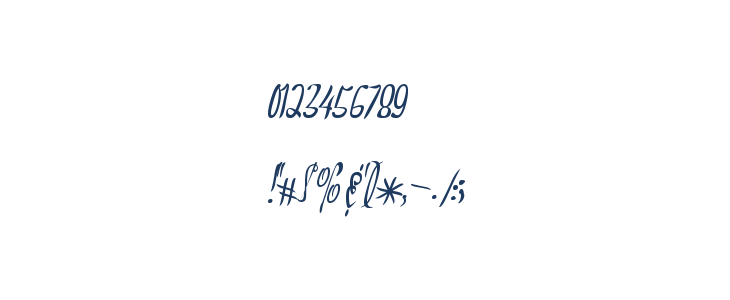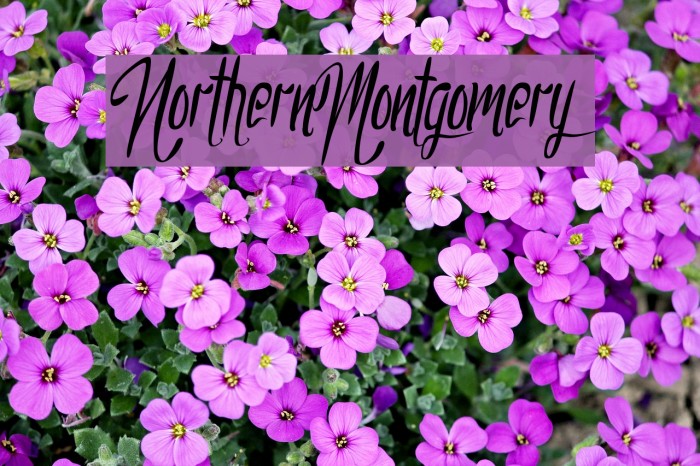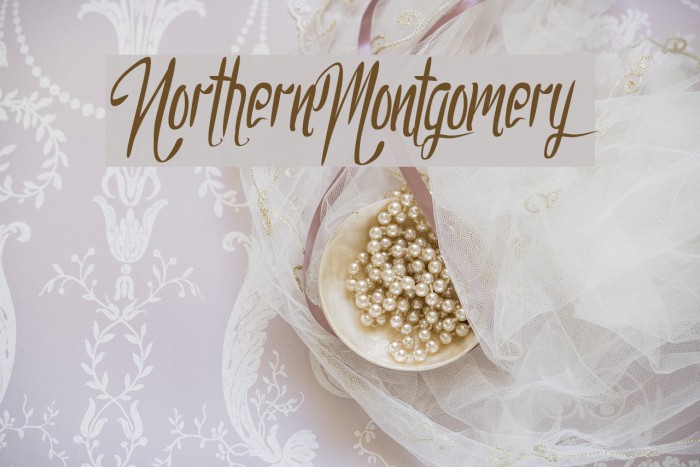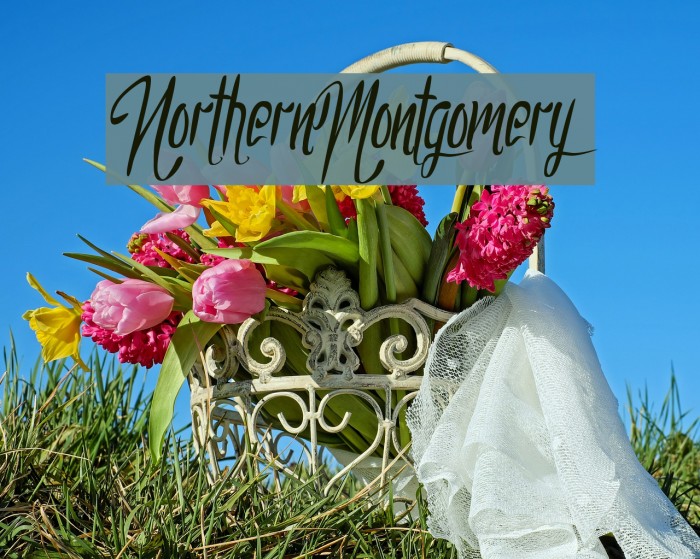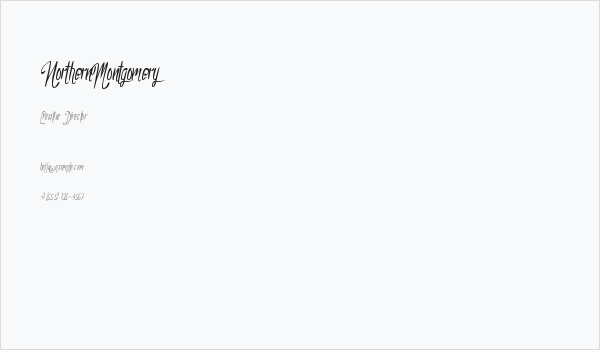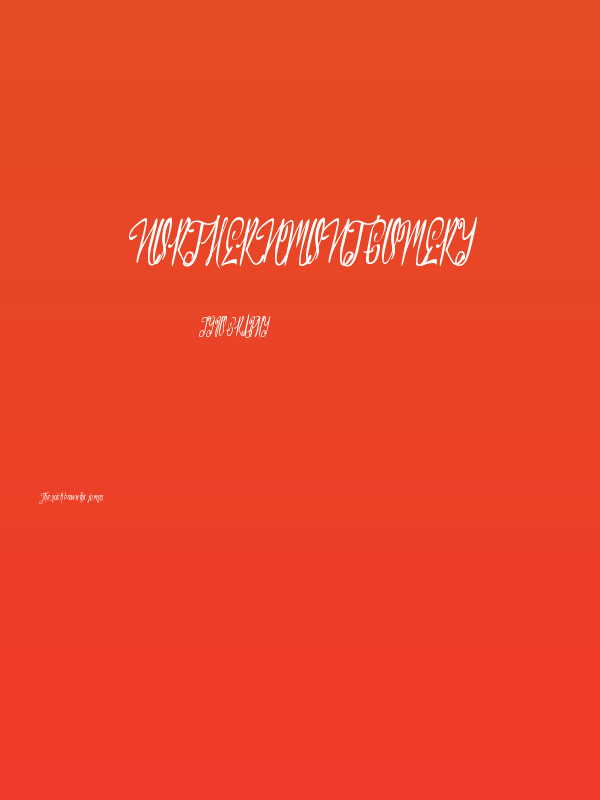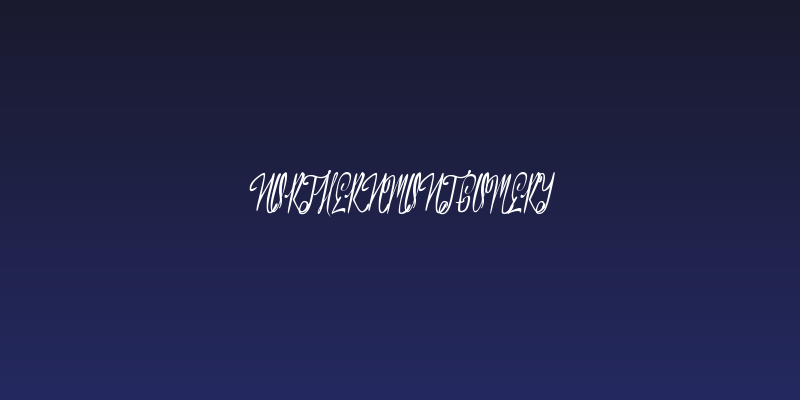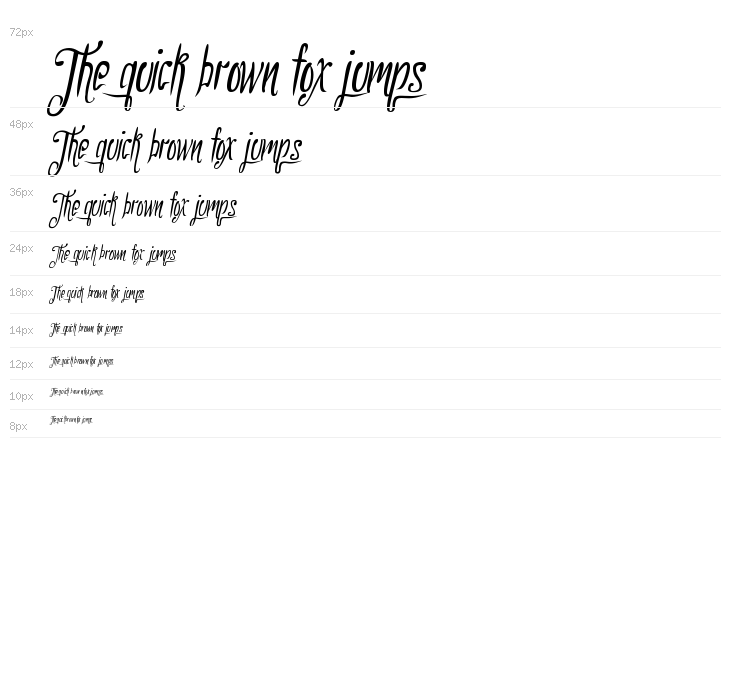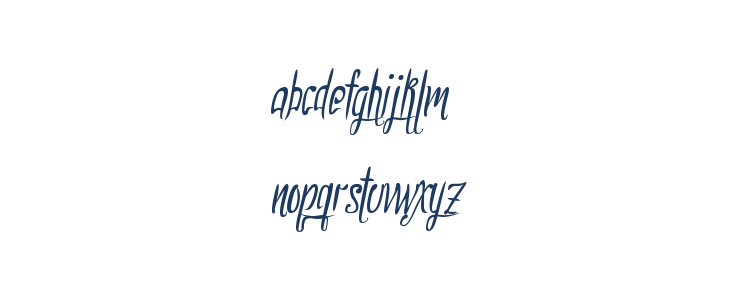
NorthernMontgomery Font
NorthernMontgomery Description
This font features an elegant and intricate script style, characterized by its flowing, cursive letters that exude a sense of sophistication and artistry. The uppercase letters are particularly ornate, with elaborate loops and swirls that give them a decorative flair. The lowercase letters maintain a consistent style, with smooth curves and a slightly condensed form that enhances readability. Numerals are designed to match the overall aesthetic, with a graceful appearance that complements the alphabet. Special characters are included, maintaining the same artistic style, making this font versatile for various design needs.